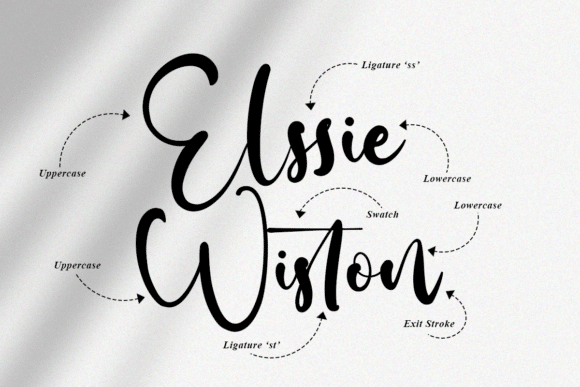
Adelle Script Font
Adelle Script is a modern and playful handwritten script font. It’s great for crafters and designers. It is perfect for any branding project such as logos, t-shirt printing, creative products, and more.